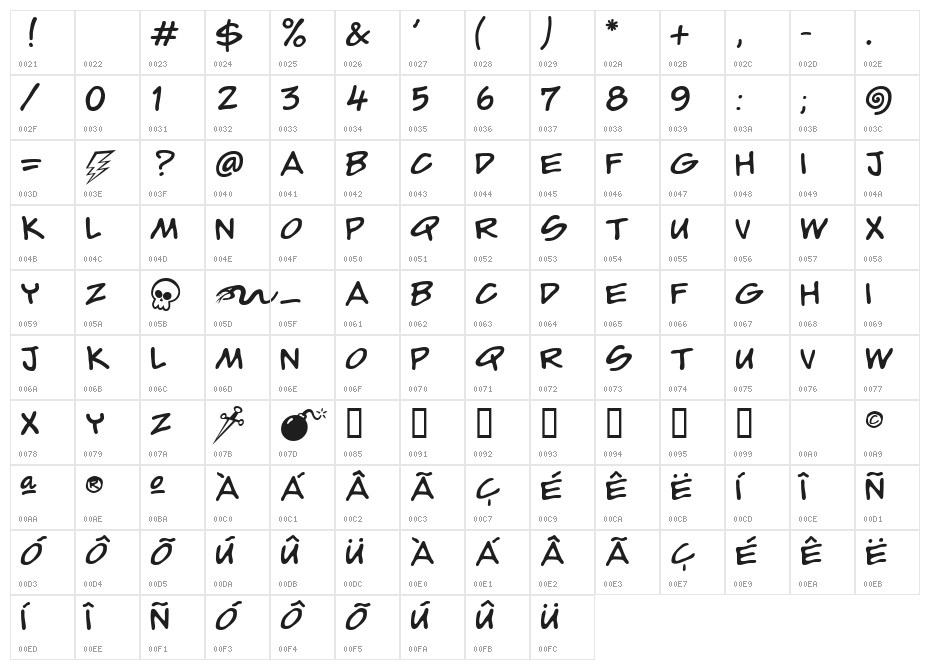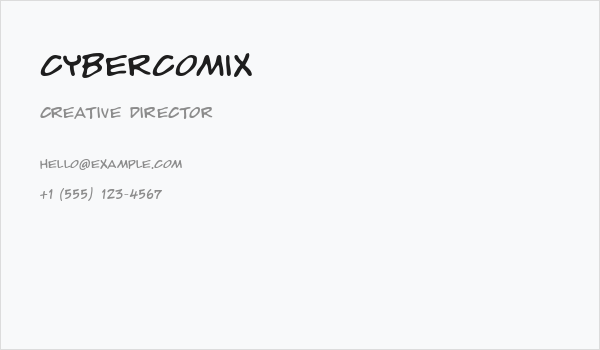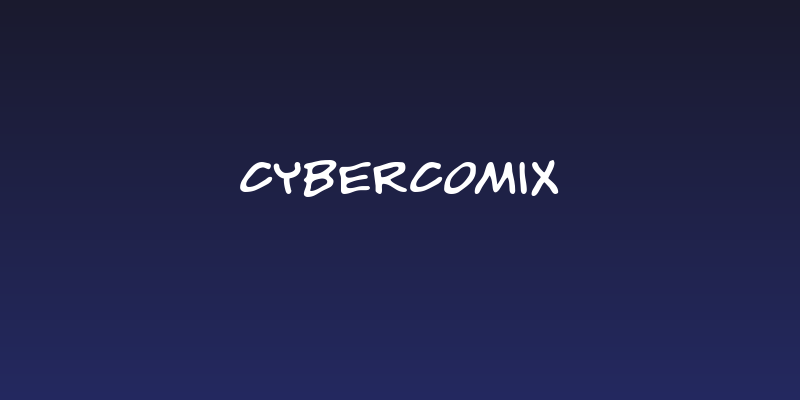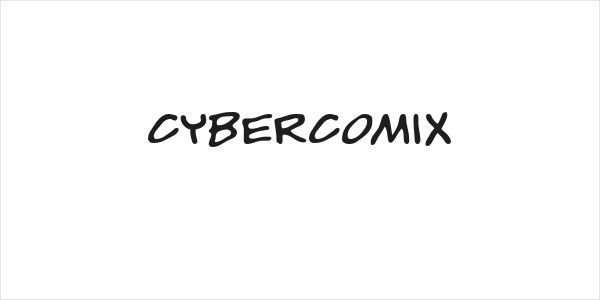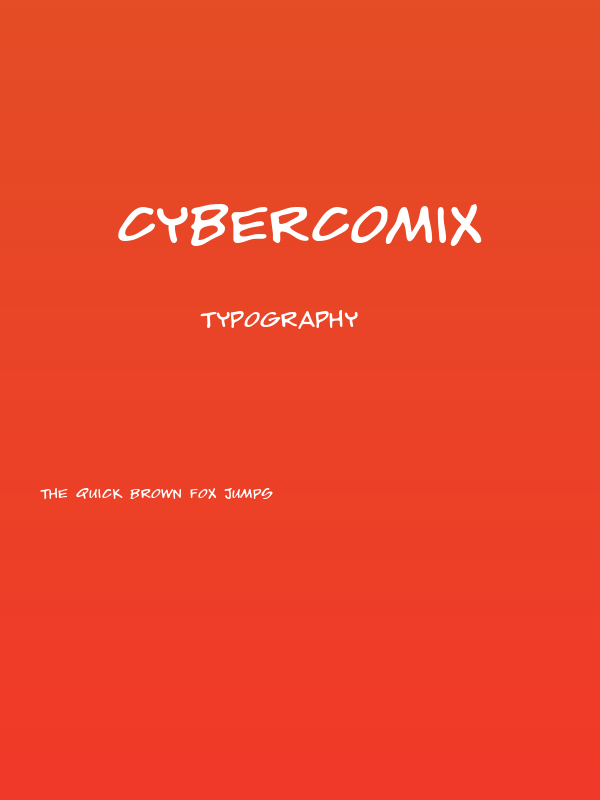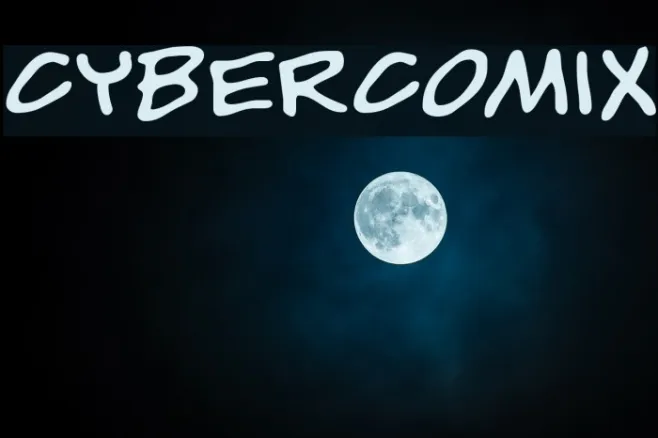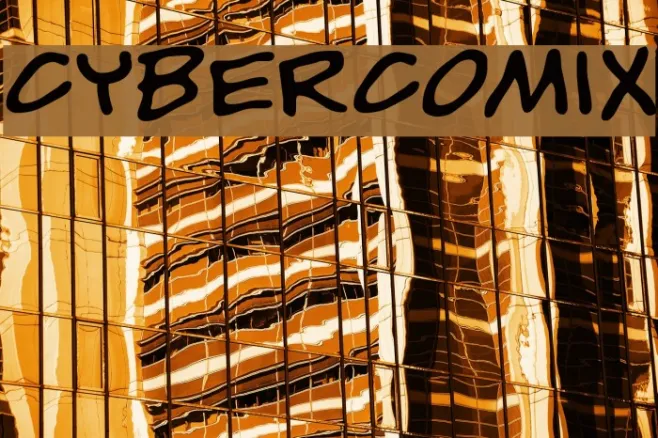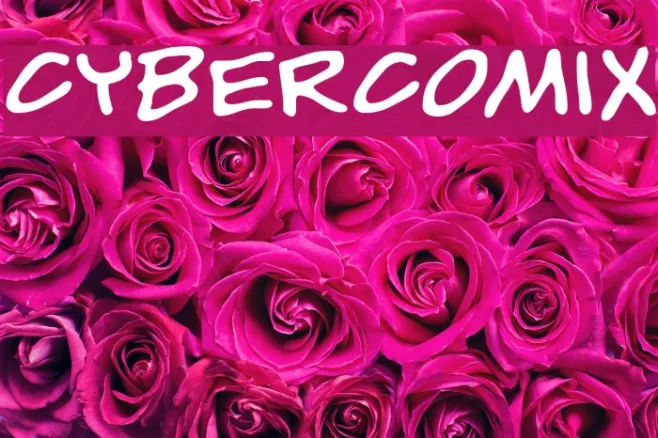
CyberComix Font
CyberComix Description
This font features a playful and dynamic style, characterized by its bold and slightly irregular strokes that give it a hand-drawn appearance. The letters have a casual, comic-like feel, with rounded edges and a consistent thickness throughout. The uppercase and lowercase letters maintain a cohesive look, while the numerals and special characters complement the overall aesthetic. This font exudes a sense of fun and creativity, making it ideal for projects that aim to capture attention and convey a lively message.
| Overall Style | Playful, Comic |
| Proposed Projects | Ideal for comic books, children's books, playful branding, and creative posters. |